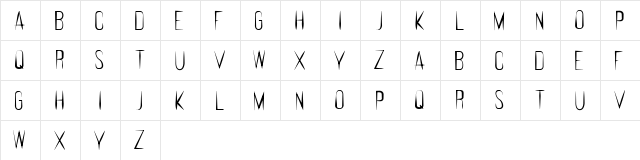
Feral Regular
Design Context for Feral Typeface
Feral is a composed and adaptable typeface that performs quietly and consistently across a wide range of design contexts.